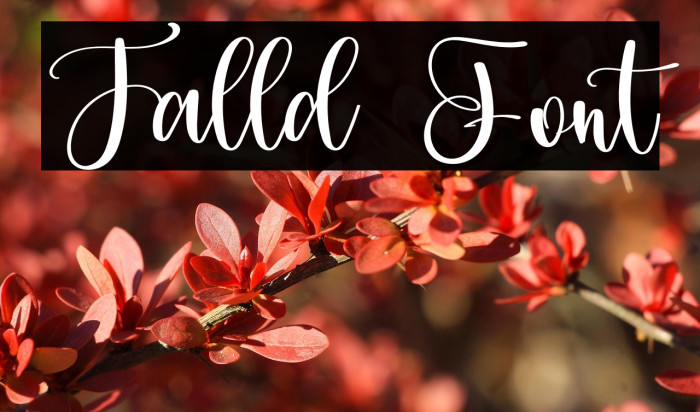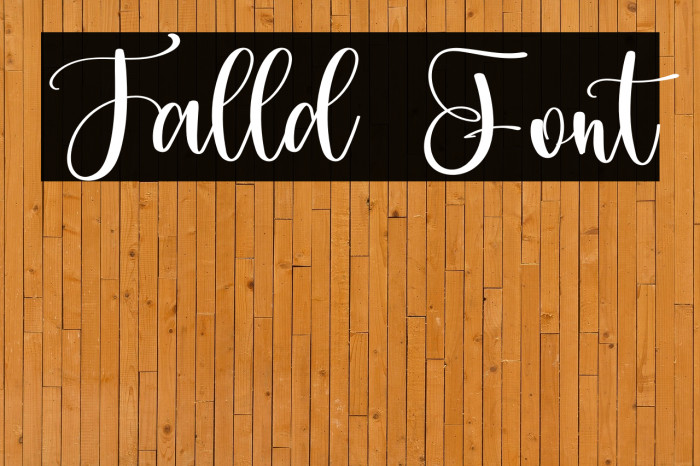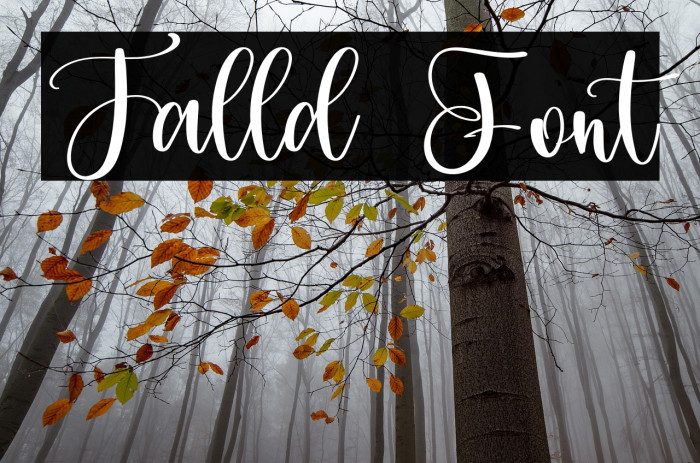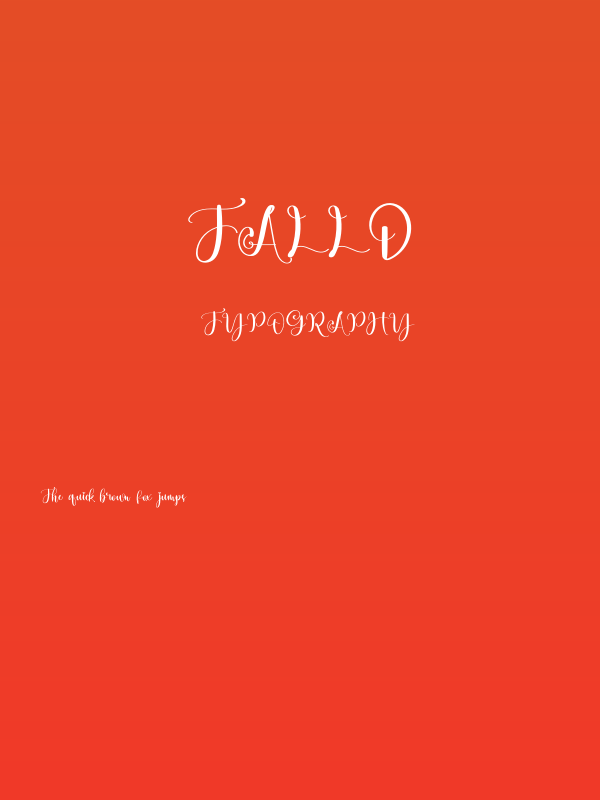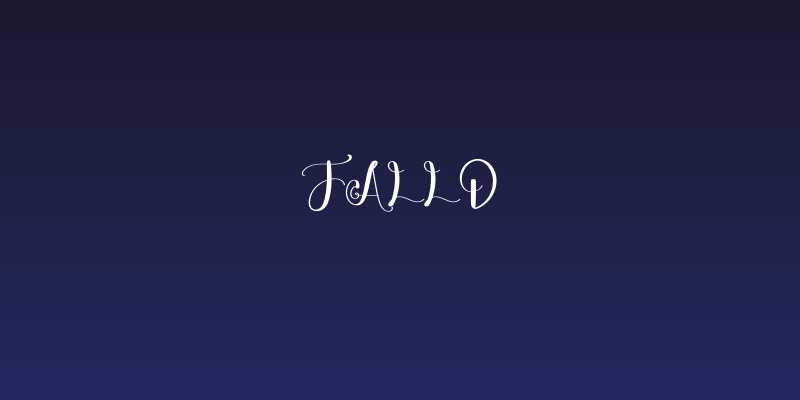
Talld Font
Talld Description
This font exudes a playful and elegant handwritten style, characterized by its flowing curves and artistic flair. The uppercase letters are tall and slender, with decorative loops and swashes that add a touch of sophistication. The lowercase letters maintain a consistent style, with some characters featuring unique embellishments that enhance their visual appeal. The numerals are bold and slightly whimsical, complementing the overall aesthetic. Special characters are creatively designed, maintaining the font's cohesive look. This font is perfect for projects that require a personal and artistic touch.
| Use Case | Logos, Invitations, Decorative Text |
| Proposed Projects | Ideal for wedding invitations, greeting cards, branding, and social media graphics. |